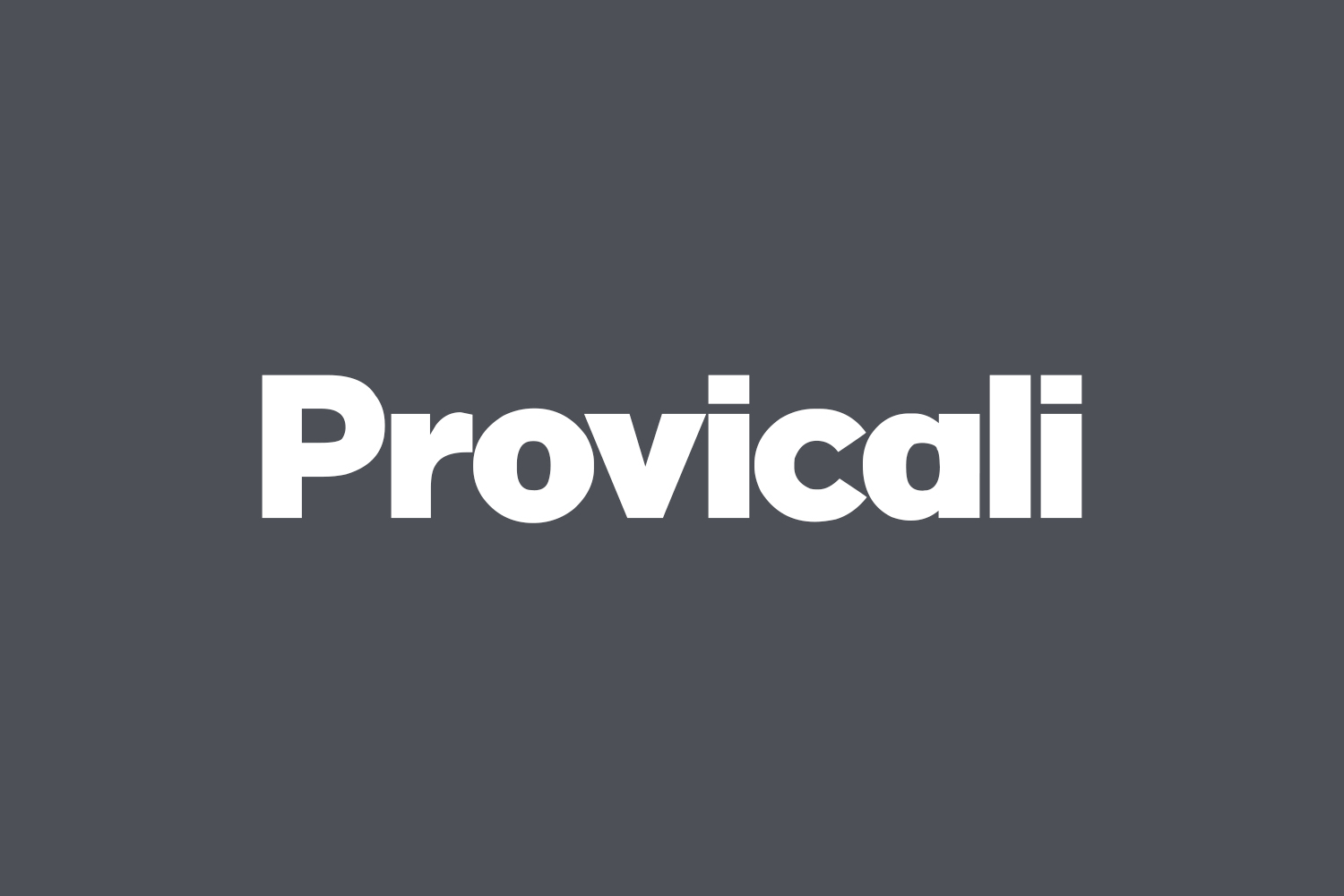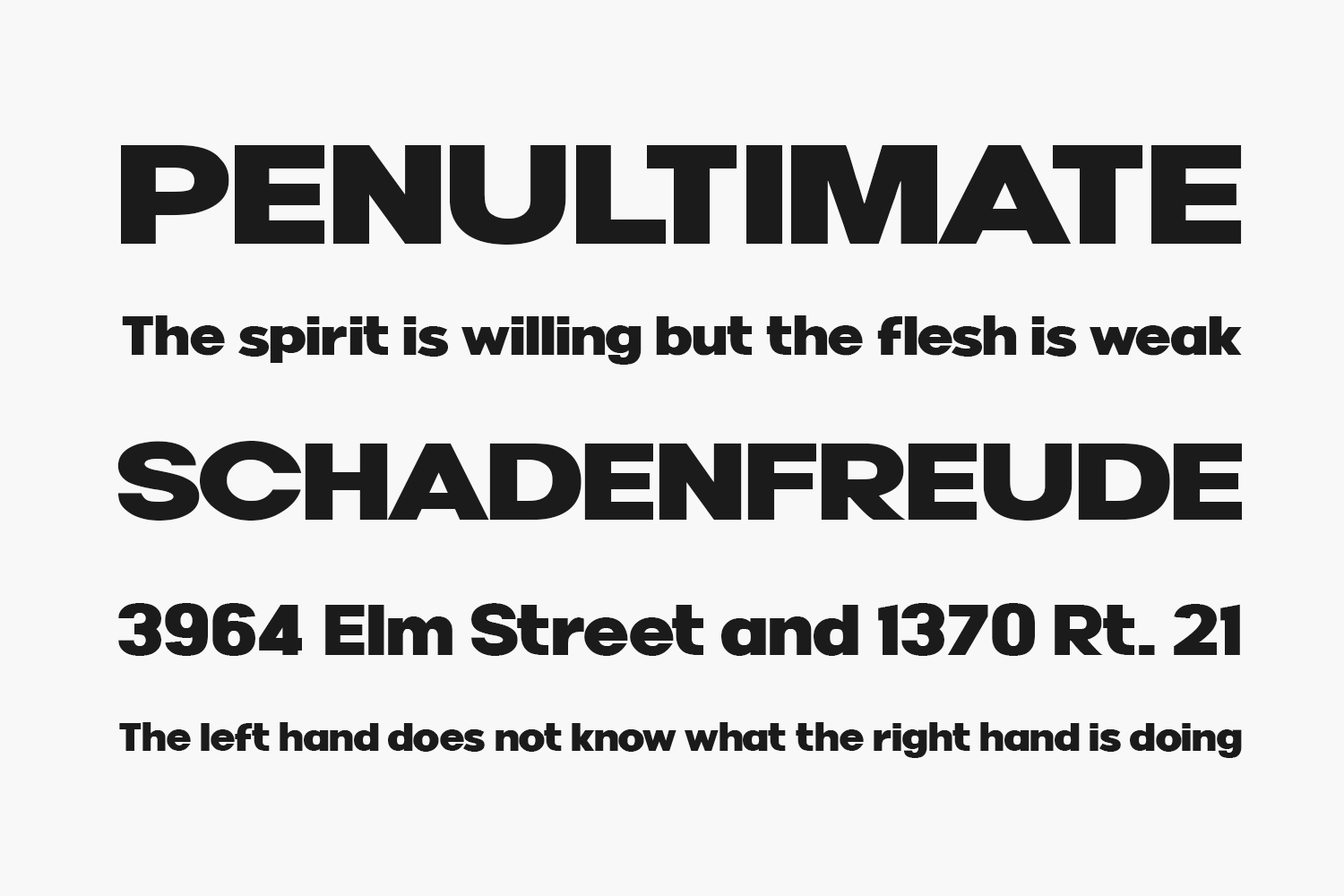
Provicali is a bold, modern sans‑serif typeface by Chequered Ink (Allison James), featuring thick, uniform strokes and soft, friendly curves. Designed for strong legibility and visual impact, it works beautifully in headlines, posters, banners, logos, book/UI titles, and social media graphics. Distributed in OTF it’s free for personal/non‑profit use—commercial licenses available via Chequered Ink.
- Bold & Clean: Uniform stroke widths and rounded terminals convey strength and clarity.
- Friendly Appearance: Slightly rounded corners soften the overall feel, making it approachable.
- Versatile Use: Ideal for titles, posters, UI headings, logos, banners, and quotes.
- Single-Style Simplicity: One regular weight keeps brand consistency easy and clean.
- Headlines & Posters: Makes titles pop in print or digital ads.
- Logos & Branding: Strong uppercase shapes give bold brand identity.
- Social Media Graphics: Eye-catching and readable on thumbnails and banners.
- UI & Web Headlines: Great for hero sections and interface titles.
- Packaging & Merchandise: Works for product labels, T-shirts, and signage.
Use at headline sizes (30 pt+), combine with clean body fonts like Circular or Space Odyssey for contrast. Increase letter spacing slightly (+10–20 tracking) to enhance readability. Neutral or bright color schemes work well with its bold nature—black, white, primary shades. For vintage vibes, try pairing with texture overlays like paper grain or pastel gradients.